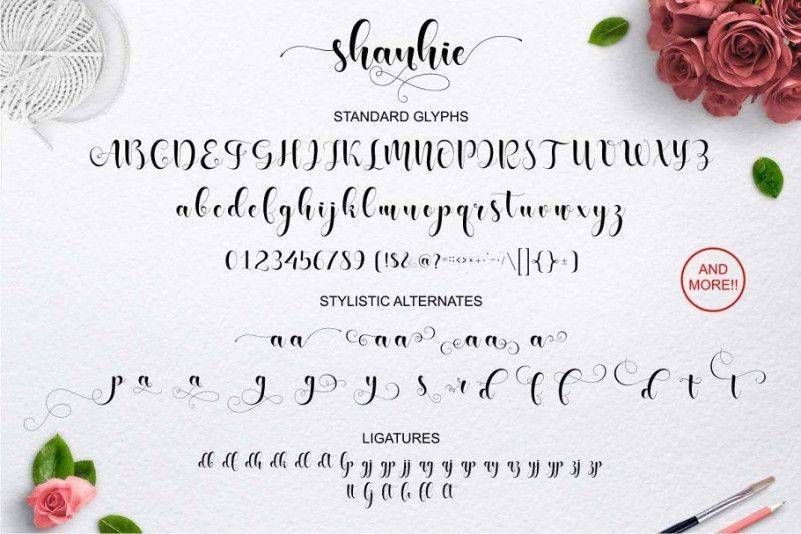
Shanhie Script Font
Good day, everyone! Shanhie Script Typeface is a contemporary calligraphy and script font. It has a traditional style and a dancing baseline, making it ideal for adding a touch of elegance to your designs. It’s a new, fresh, and modern script with a calligraphy-style handwritten look, beautiful letters, and a dancing baseline! Jamalodin developed and shared the font. The typeface has a distinct flavor of classiness and charm that distinguishes it from its competitors.
This lovely font is ideal for invitations, greeting cards, branding materials, business cards, quotations, posters, and more! You can use this typeface without hesitation if you like handmade frames or other home decor items. You can also make beautiful personalized cards by using this font.
| Name | Shanhie Script Font |
| Style | Script, Calligraphy |
| Designer | Jamalodin |